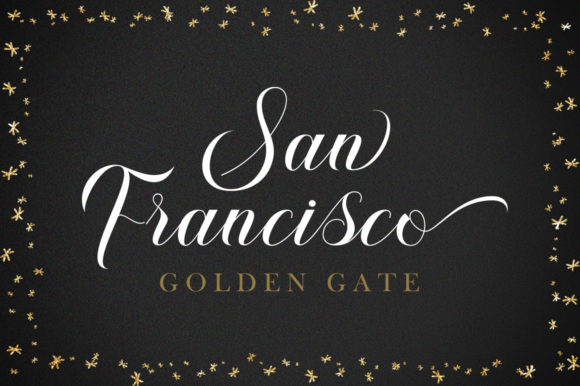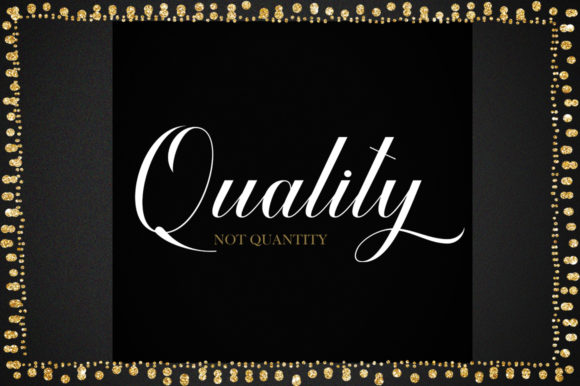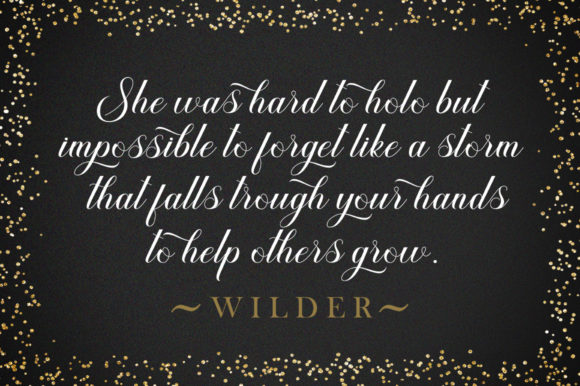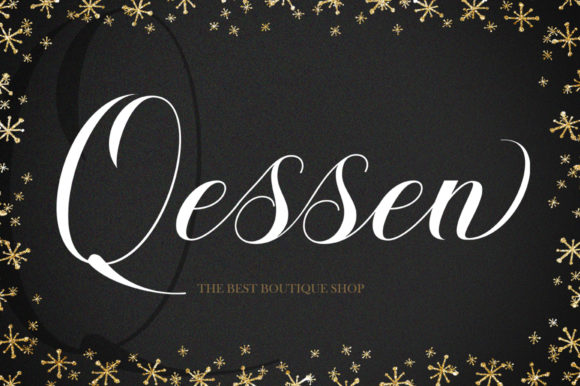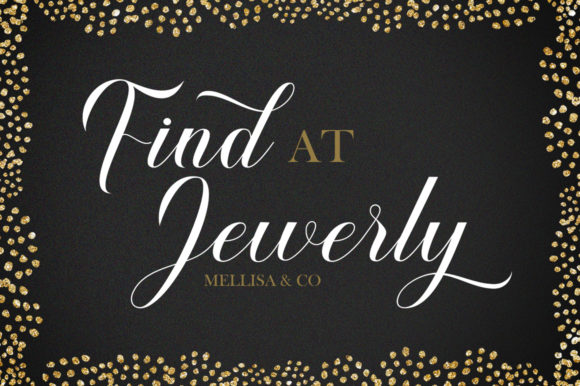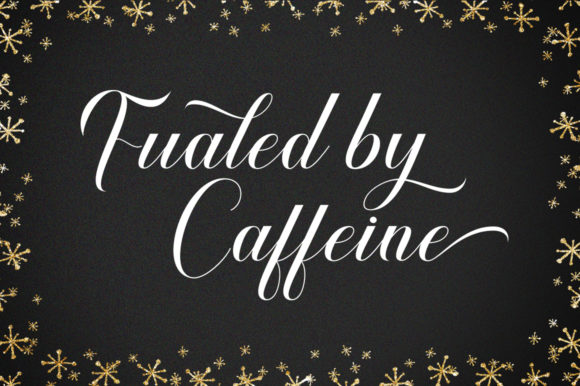
Introduction to Silfer Queen Font Font
Fonts play a crucial role in design, and the Silfer Queen Font font is a typeface that brings both character and versatility to any project. Whether you’re working on a branding project, a website, or a print design, the Silfer Queen Font font offers a unique style that can elevate your work.
Introducing Silfer Queen Script, a vintage calligraphy font.
This is a classic thin font with an italic style This stylish font will make your work look elegant and clean.
The Silfer Queen Font font is more than just a typeface – it’s a design tool that helps you communicate your message with style and clarity. Its unique character set and versatile design make it suitable for a wide range of applications, from elegant invitations to bold headlines.
With its carefully crafted letterforms and balanced proportions, the Silfer Queen Font font ensures readability and visual appeal across all mediums.
The Silfer Queen Font font stands out with its unique design, exceptional readability, and versatility across various design applications.